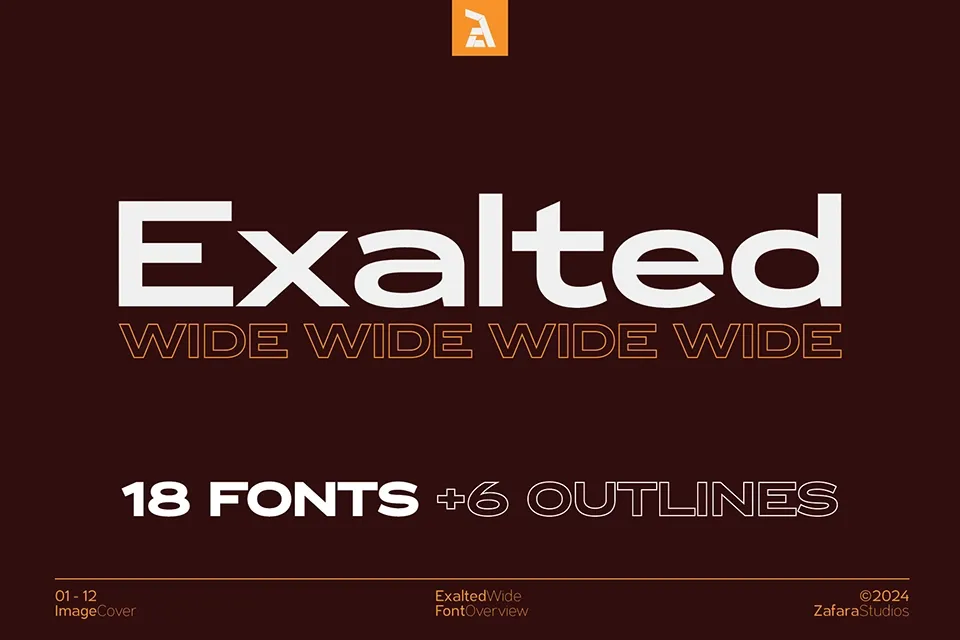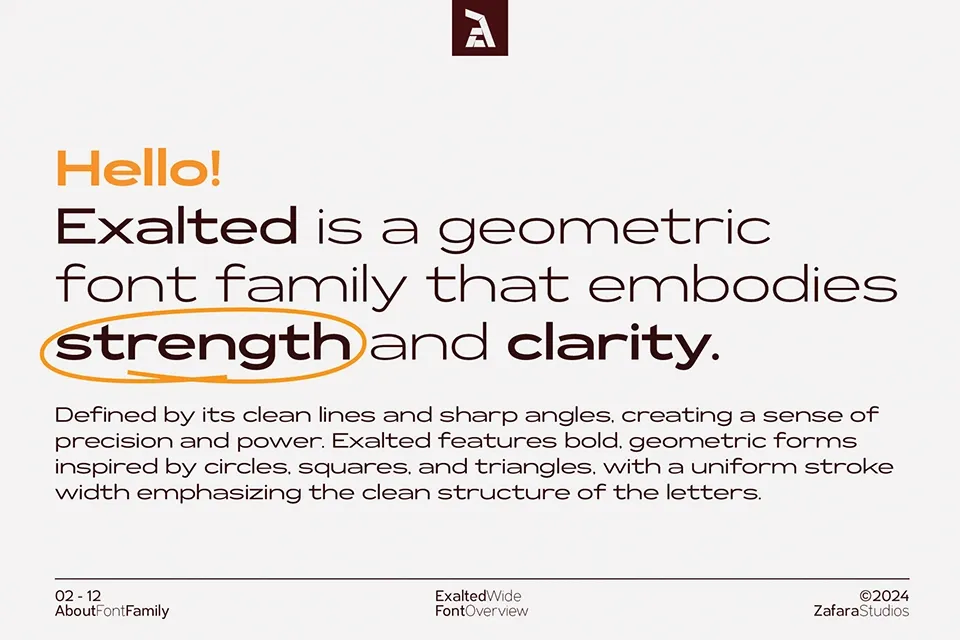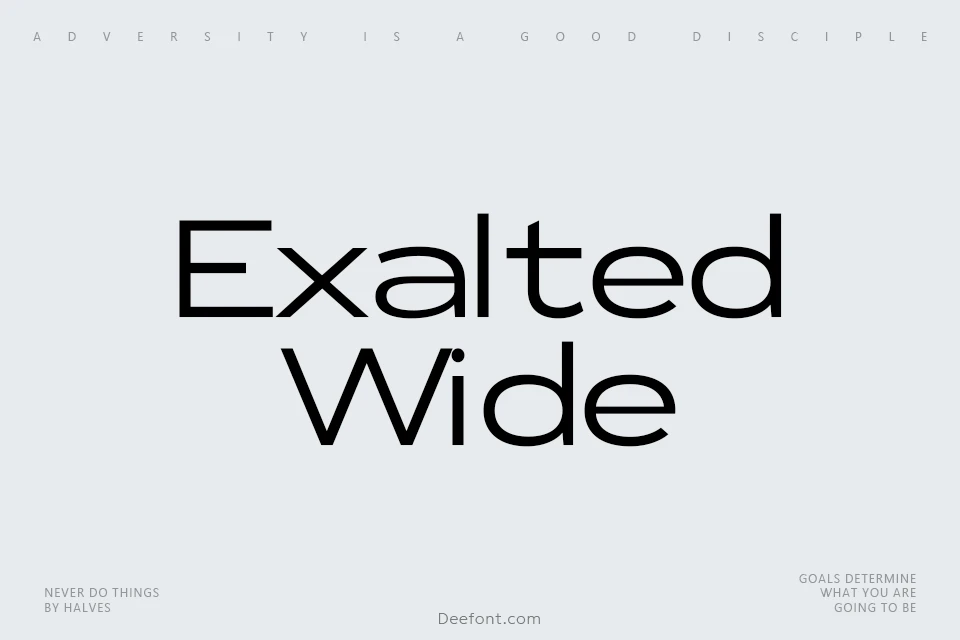
Exalted Wide Font
Exalted Wide Font is a geometric sans serif typeface that embodies strength and clarity. Defined by its clean lines and sharp angles, it creates a sense of precision and power. The bold, geometric forms are inspired by circles, squares, and triangles, with a uniform stroke width that emphasizes the clean structure of the letters. Exalted Wide Font is versatile and suitable for editorial design, branding, graphic design, signage, logos, apps, websites, eBooks, print media, and more, making it an excellent choice for a wide range of creative projects.